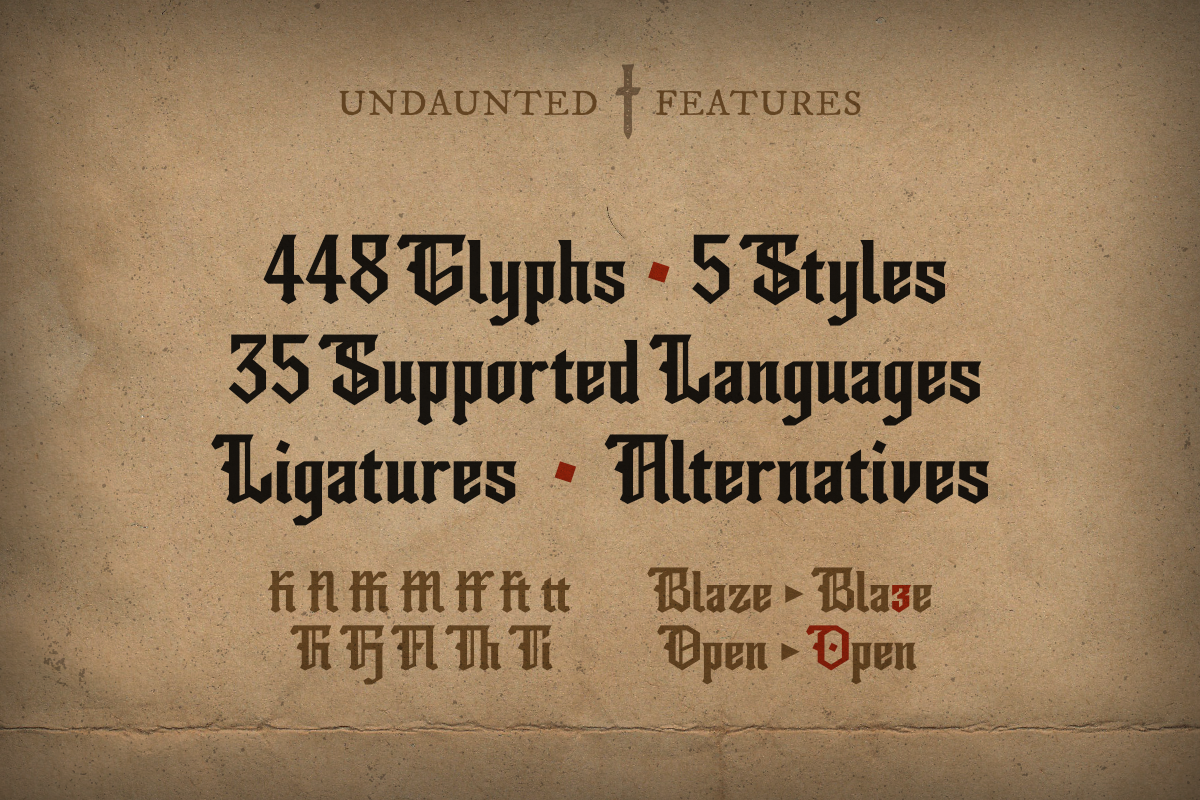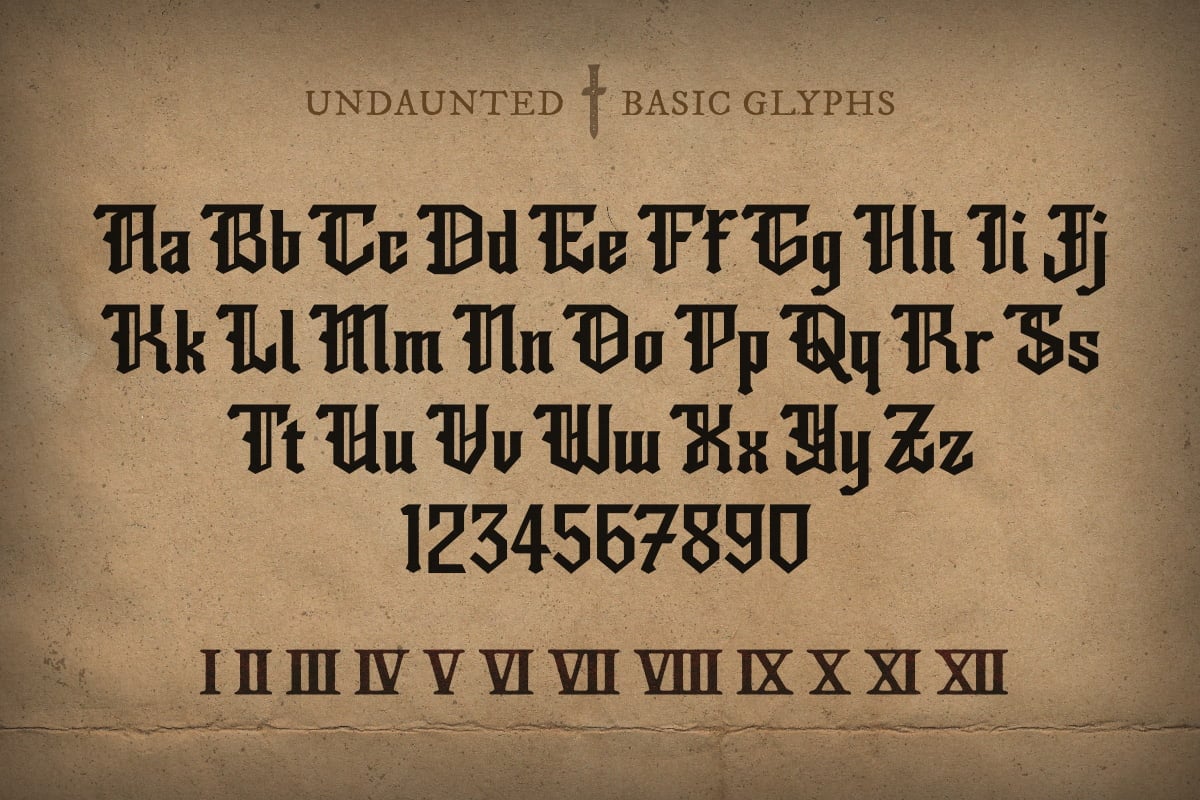
Undaunted - Blackletter Font
A fearlessly rugged blackletter font with flat-topped glyphs that's a perfect pick for statement designs, no-nonsense merch, tattoos, and TTRPGs!
Undaunted comes in 5 unique styles:
- Regular: the clean cut version
- Rough: a subtly eroded version with jagged edges
- Bleed: an over-inked version that bleeds into the page
- Stamp: a gritty, textured version
- Outline: a thin outline version with sharp edges
Alternatives
Lowercase z (and related glyphs) have an alternative that looks more like a number 3.
Capital O (and related glyphs) have an alternative version with a dot in the center.
The glyphs included support 35 languages:
Afrikaans, Albanian, Basque, Bosnian, Catalan, Croatian, Czech, Danish, Dutch, English, Estonian, Faroese, Filipino, Finnish, French, Galician, German, Hungarian, Icelandic, Indonesian, Irish, Italian, Latvian, Lithuanian, Malay, Norwegian Bokmål, Polish, Portuguese, Slovak, Slovenian, Spanish, Swahili, Swedish, Turkish, Zulu.